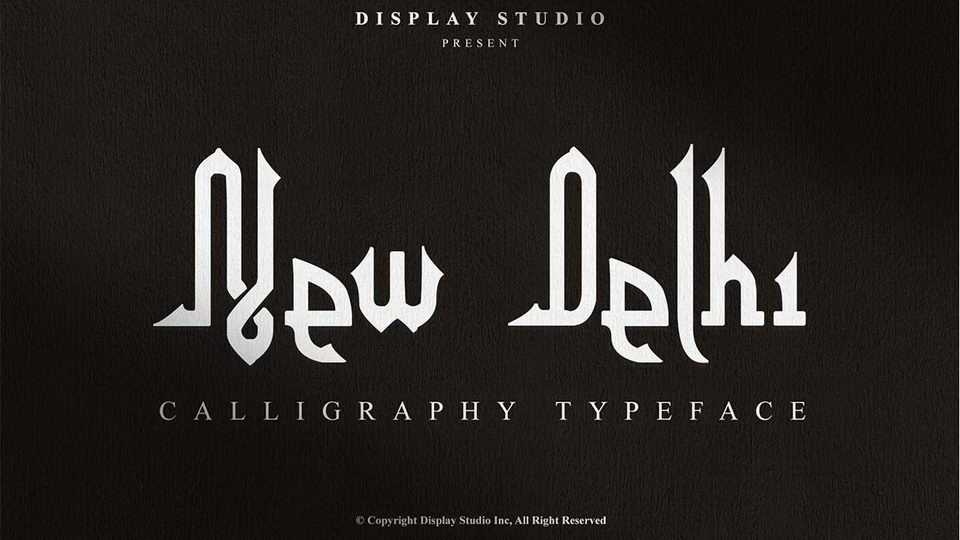
Download New Delhi font, a decorative display typeface inspired by calligraphy. New Delhi is perfect for headlines, posters and other authentic projects.
Designer: Display Studio